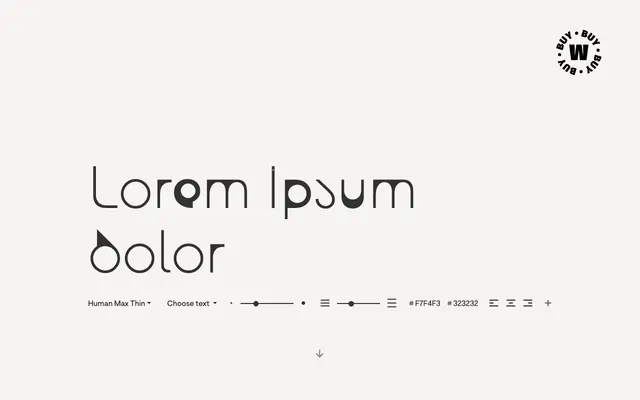
Human Max
W Type Foundry · David Súid
A display revival of Max Bill's experimental 'study for a typeface for machines and humans', adapted by David Súid with a contemporary geometric finish across seven weights.
Based on Max Bill's original typographic study, the design has been reworked into a functional display system with stylistic alternates, ligatures and extended punctuation to aid readability in complex settings. It shares proportional DNA with W Type Foundry's Hofmann Grotesk, positioning the two as complementary faces within a broader geometric tradition. Seven weights from Thin to Black make it suited to editorial and identity work where a Bauhaus-adjacent geometric voice is required.
Explicitly presented as a Display option, Human Max is a geometric sans revival derived from Max Bill's experimental typeface study, with contemporary geometric refinements and alternate characters distinguishing it from standard text use.